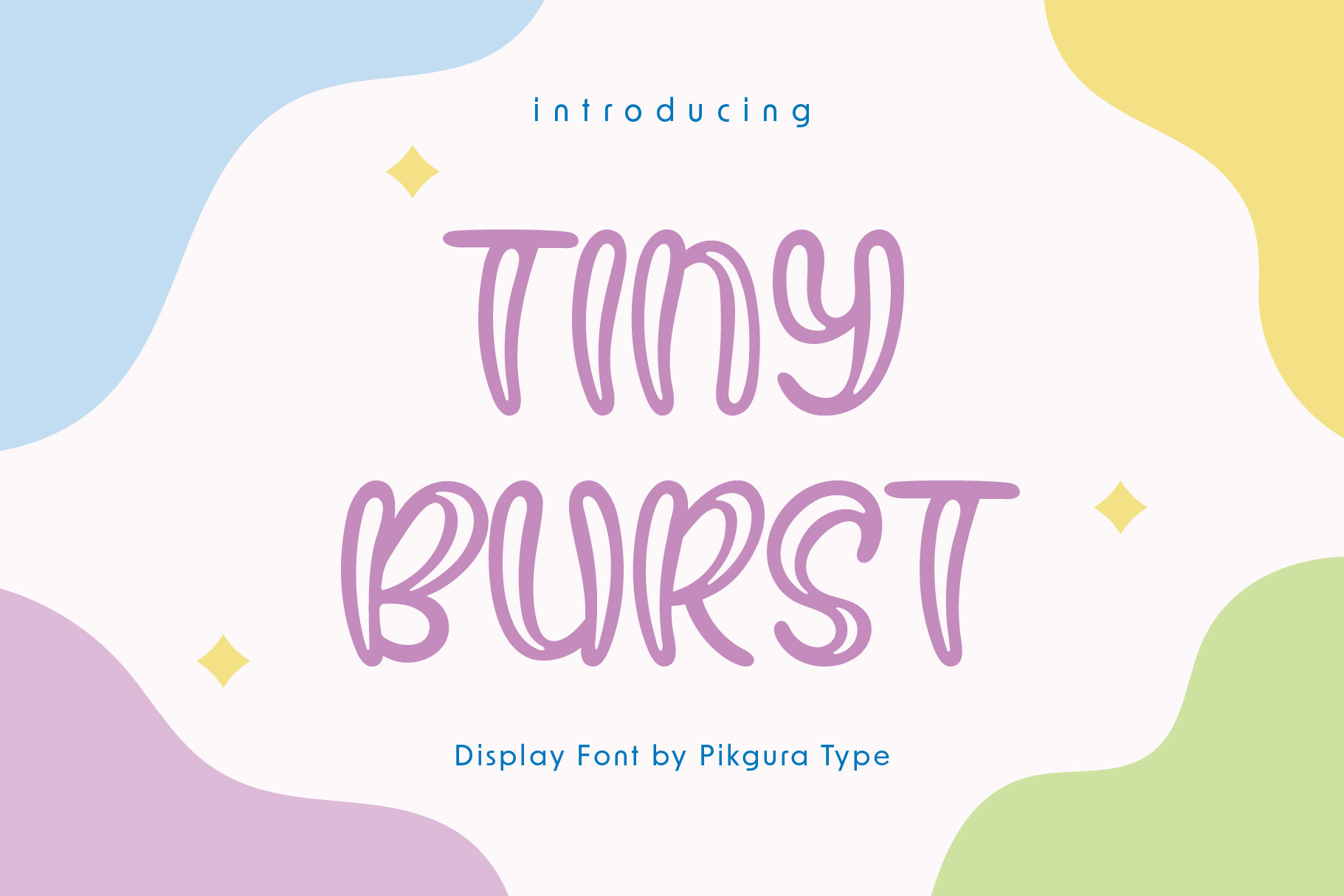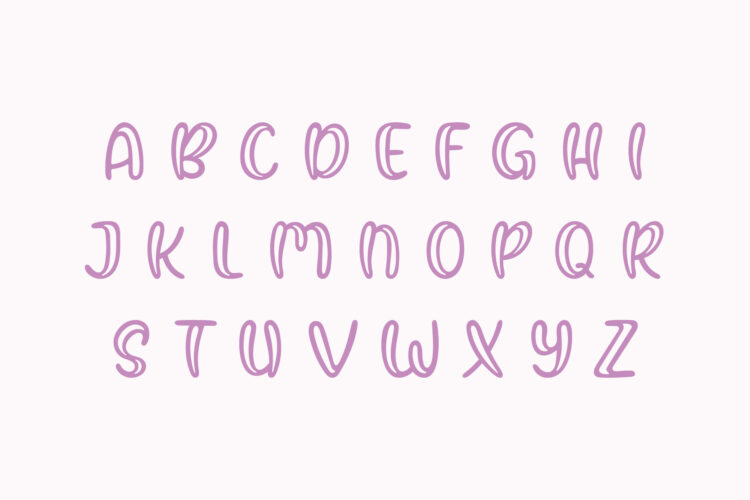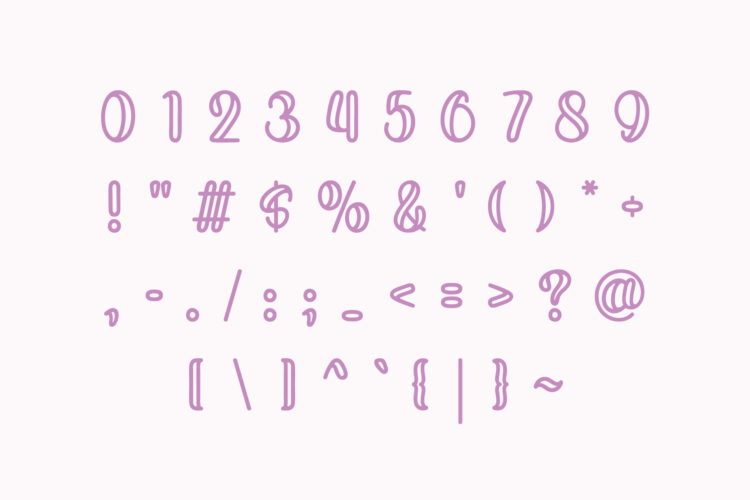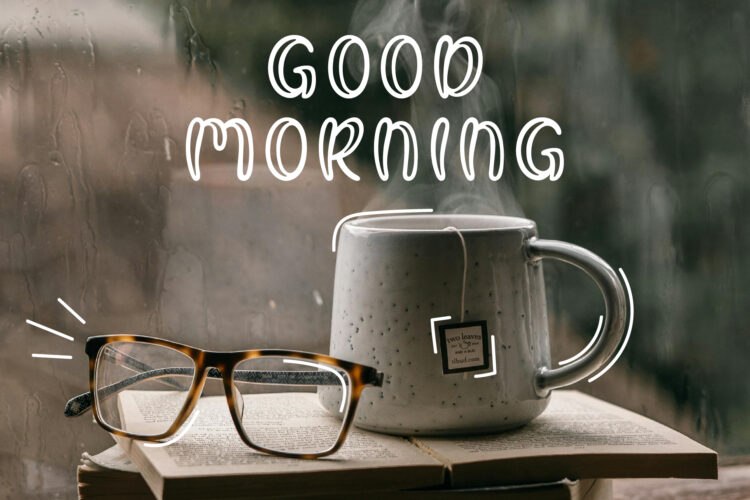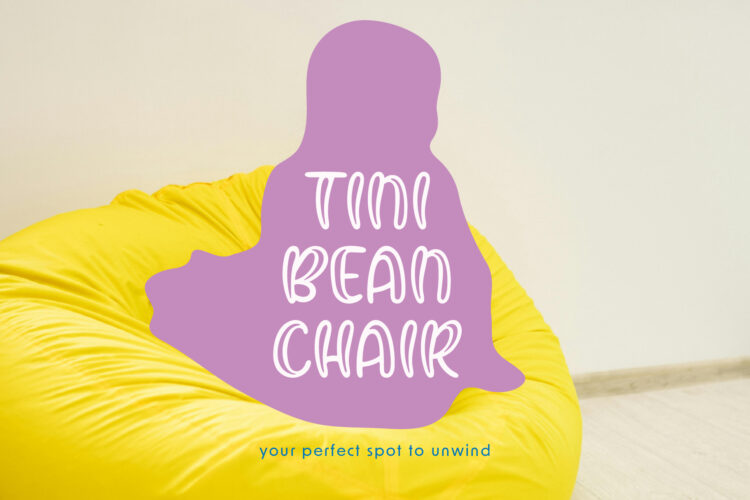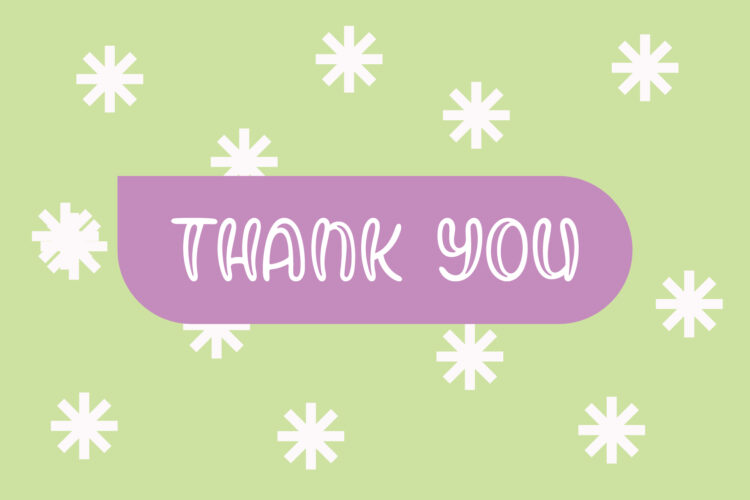
Tiny Burst
Say hello to Tiny Burst, a hand-drawn display font bursting with personality. I designed each letter by hand to capture a fun and creative spirit. The cheerful shapes and lively strokes add instant charm to any design.
Tiny Burst offers a complete set of alphabets, numbers, and basic punctuation. You can use it for posters, greeting cards, logos, or social media graphics. Every word you type shines with playful energy and handmade warmth.
Let Tiny Burst bring joy to your creative projects. Create cute, quirky layouts or bold, expressive titles with ease. This font helps your designs stand out and puts a smile on every viewer’s face.
Tiny Burst – Cute Font